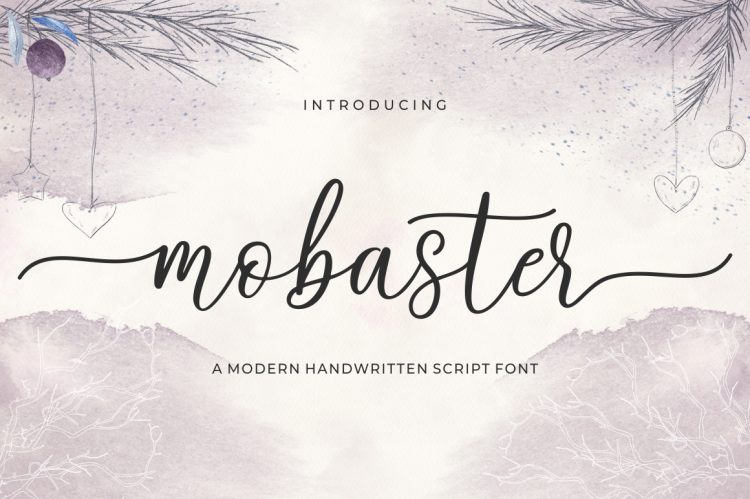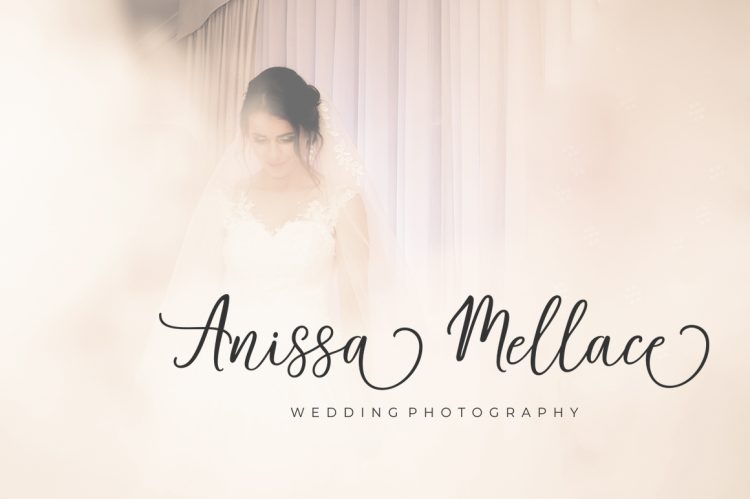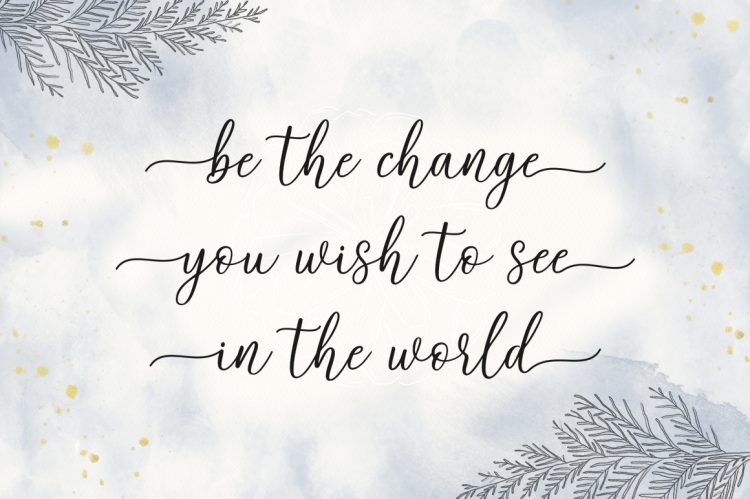
Mobaster Script is a modern script with handwriting, decorative characters, and dancing baselines! very suitable in use Like blog header, branding, t-shirt, wedding, social media, product design, stationery, advertising, clothing, book cover, business cards, greeting cards, branding, merchandise, invitations and handmade quotes and more.